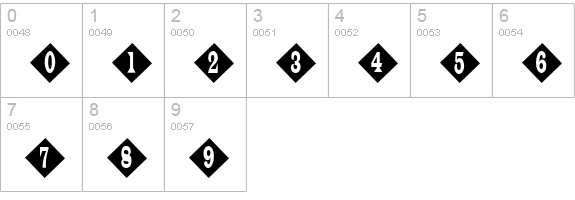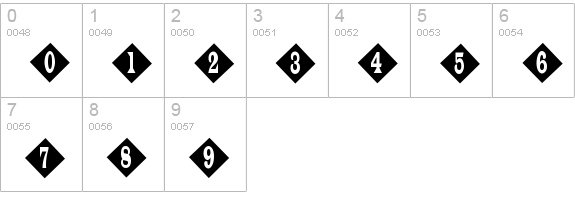
FrootStand Font Details
Introducing FrootStand font, a whimsical and playful typeface that is sure to add a touch of fun to your projects. With its unique design and charming aesthetic, FrootStand is perfect for creating eye-catching designs, playful logos, and vibrant branding materials. This delightful font comes in a variety of weights and styles, making it versatile for a wide range of design applications. Whether you're working on a children's book, a poster for a summer event, or a quirky social media graphic, FrootStand has got you covered. Best of all, FrootStand is completely free to download at FontsMarket.com. So go ahead and add this delightful font to your collection today and let your creativity run wild!